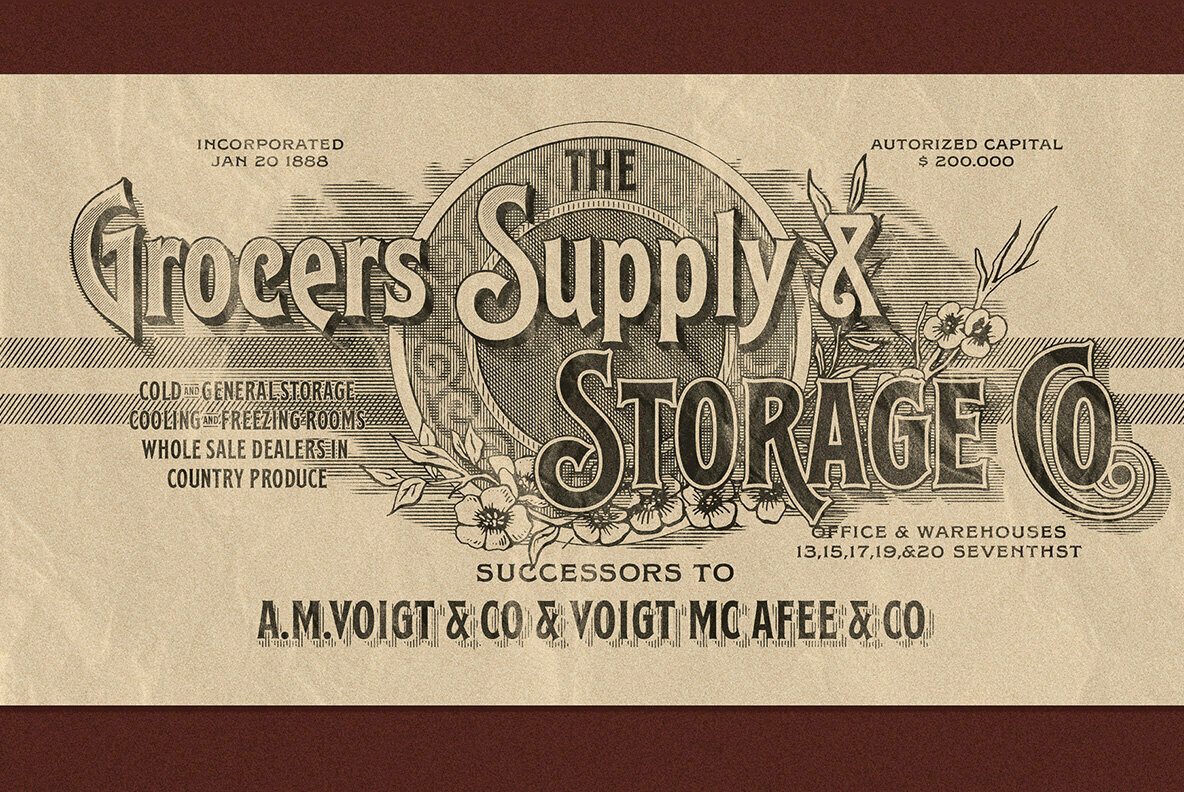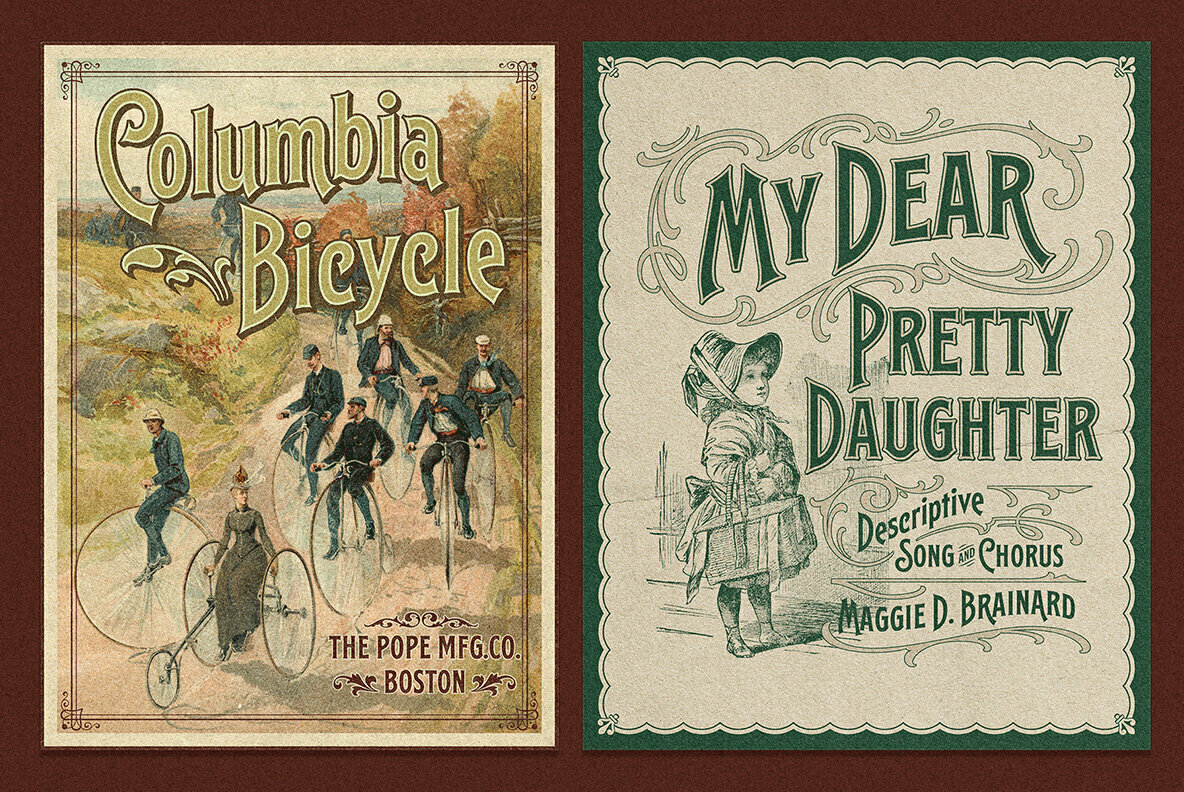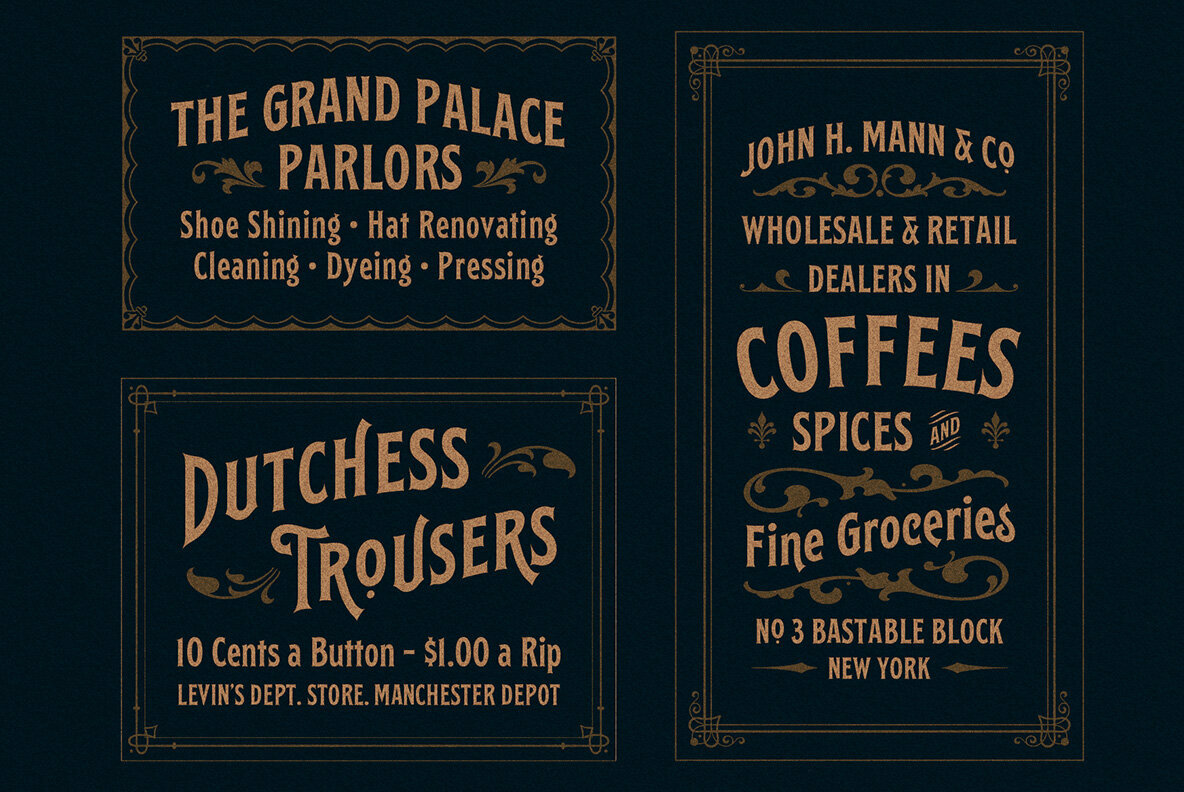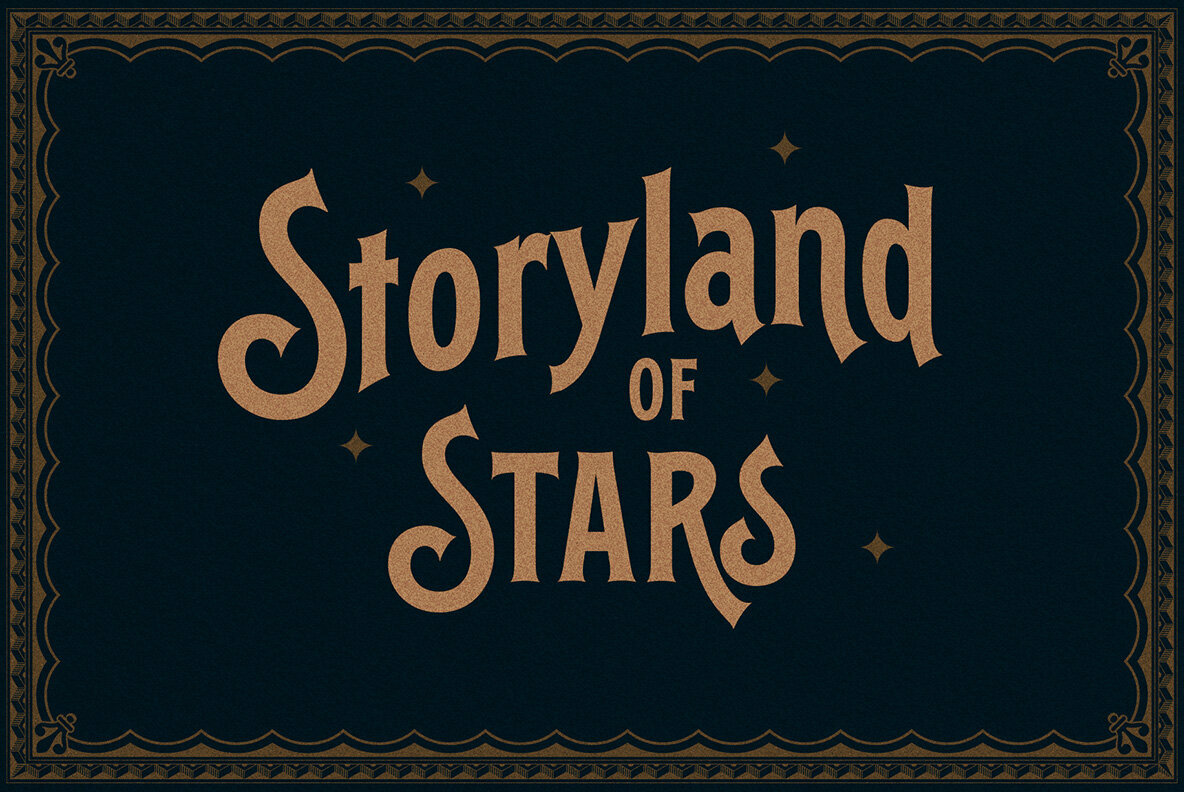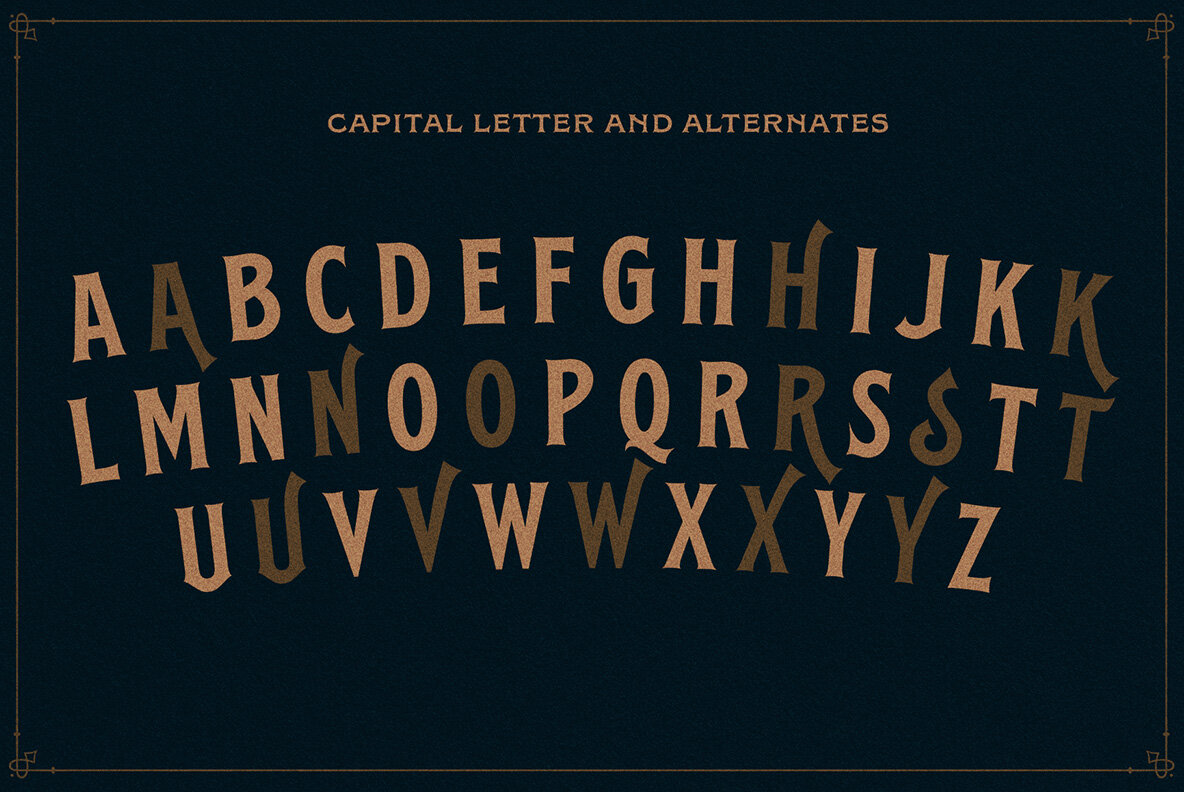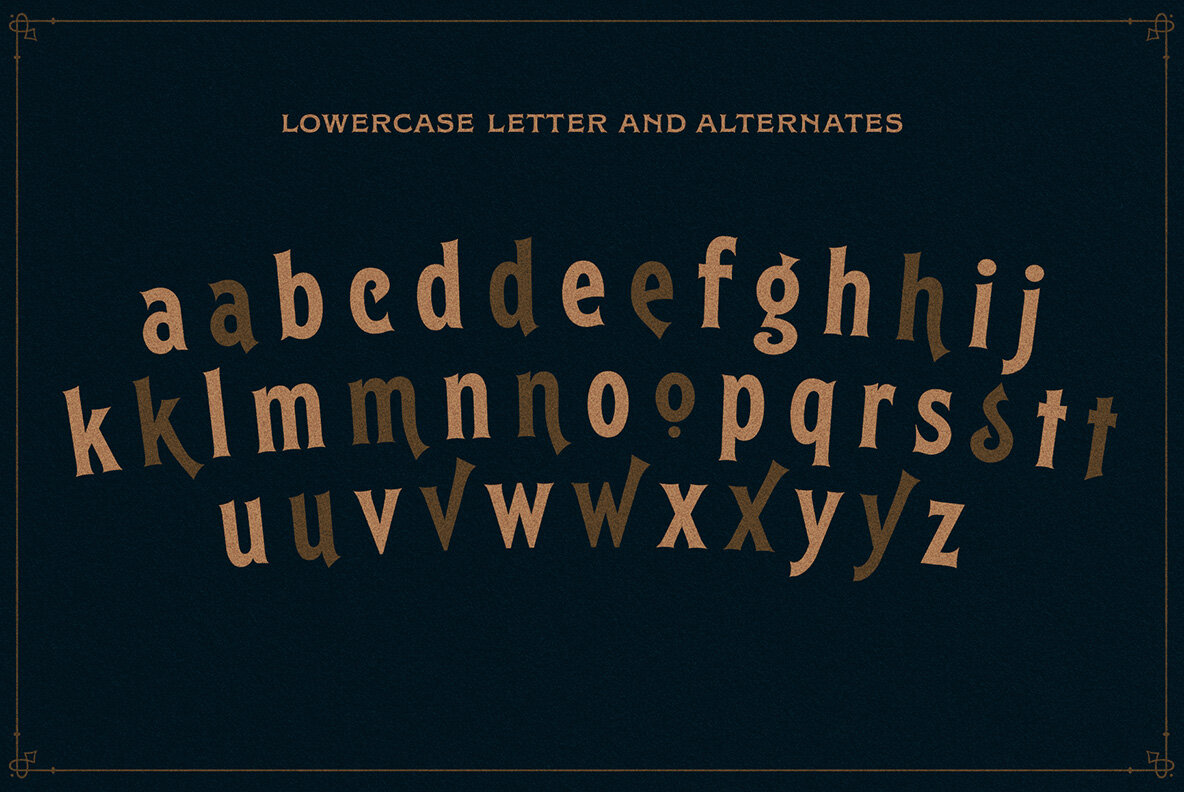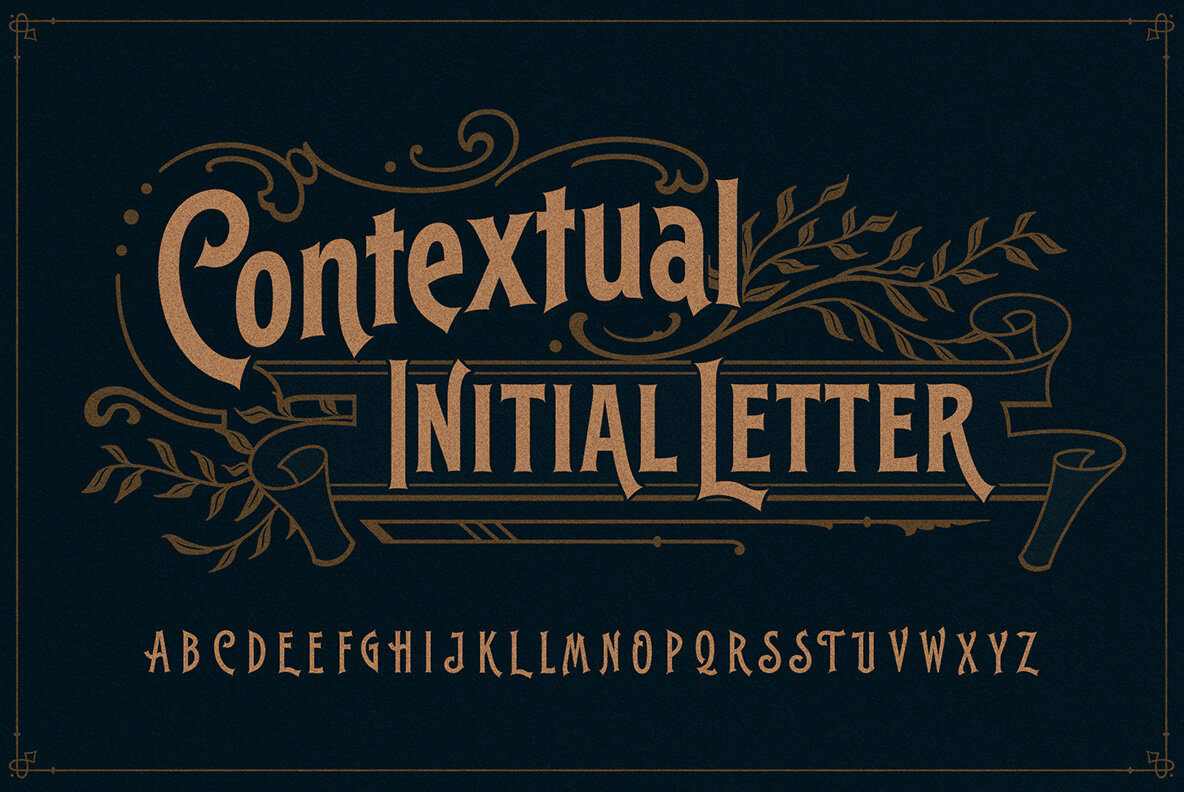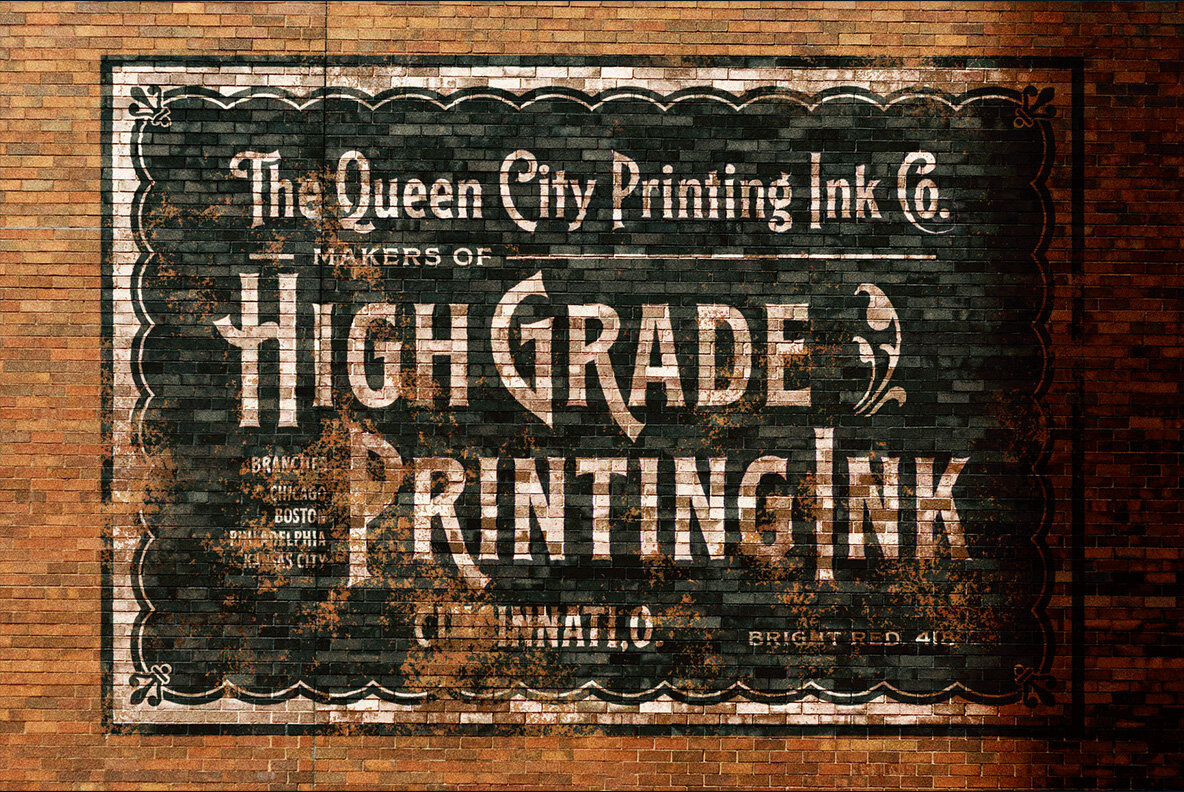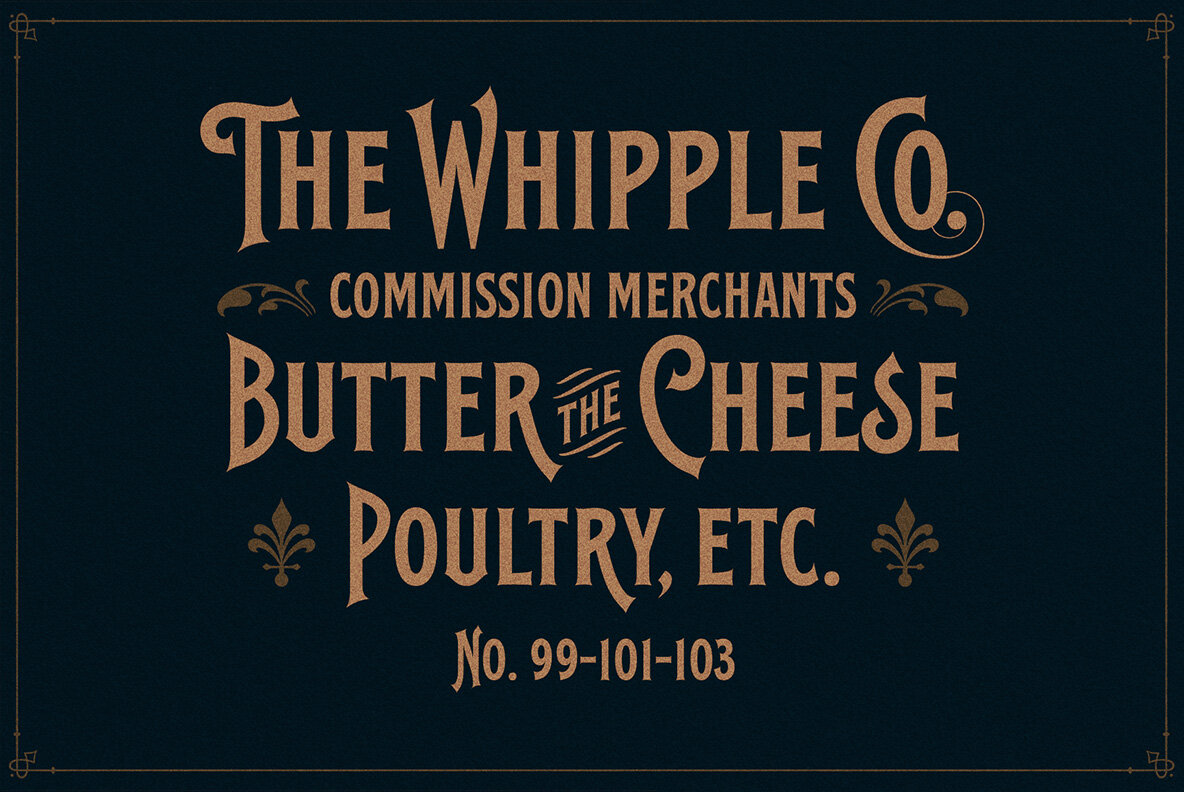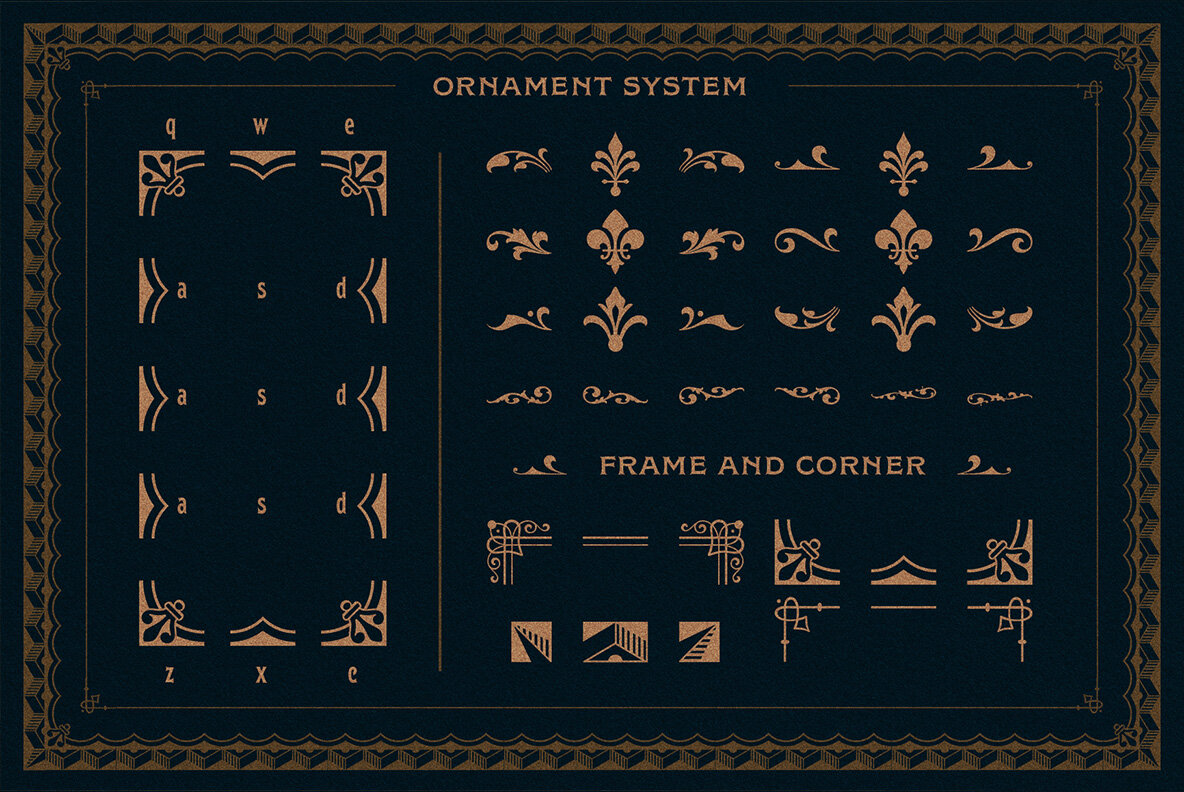
EFCO Splandor Font
The EFCO Splandor is a masterfully revived font, originally released in 2014, now enhanced with superior vector quality and enriched features. The redesigned version includes carefully crafted lowercase letters, making it suitable for an array of design projects. EFCO Splandor is an excellent choice for designers looking to make high-impact visual statements. This font is particularly versatile for display applications, such as headings, signage, posters, and more. Its new attributes guarantee a broader scope of creative expression.EFCO Splandor: Refined Display Font with Modern Features